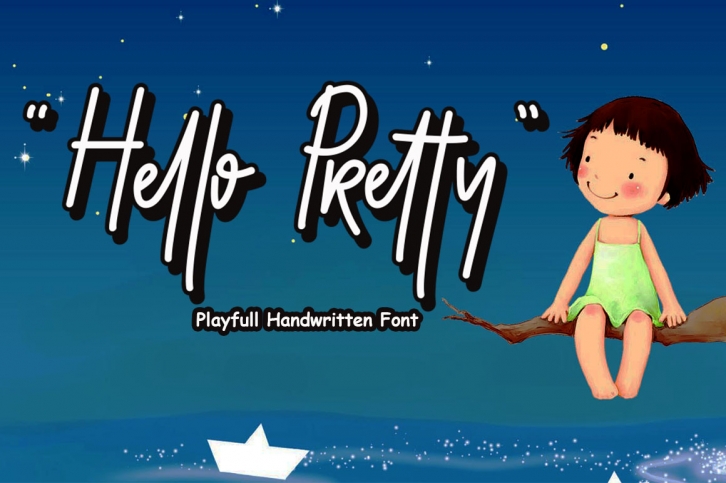
Hello Pretty Playful is a beautiful font that was designed by Haksen. It's a great choice for designers and creatives who need such a font. It was released on August 31, 2018 and the file size is 5.70 MB. Hello Pretty Playful may give a more youthful, expressive and casual look to your project. It is a very beautiful, refined, elegant, and high-quality font.